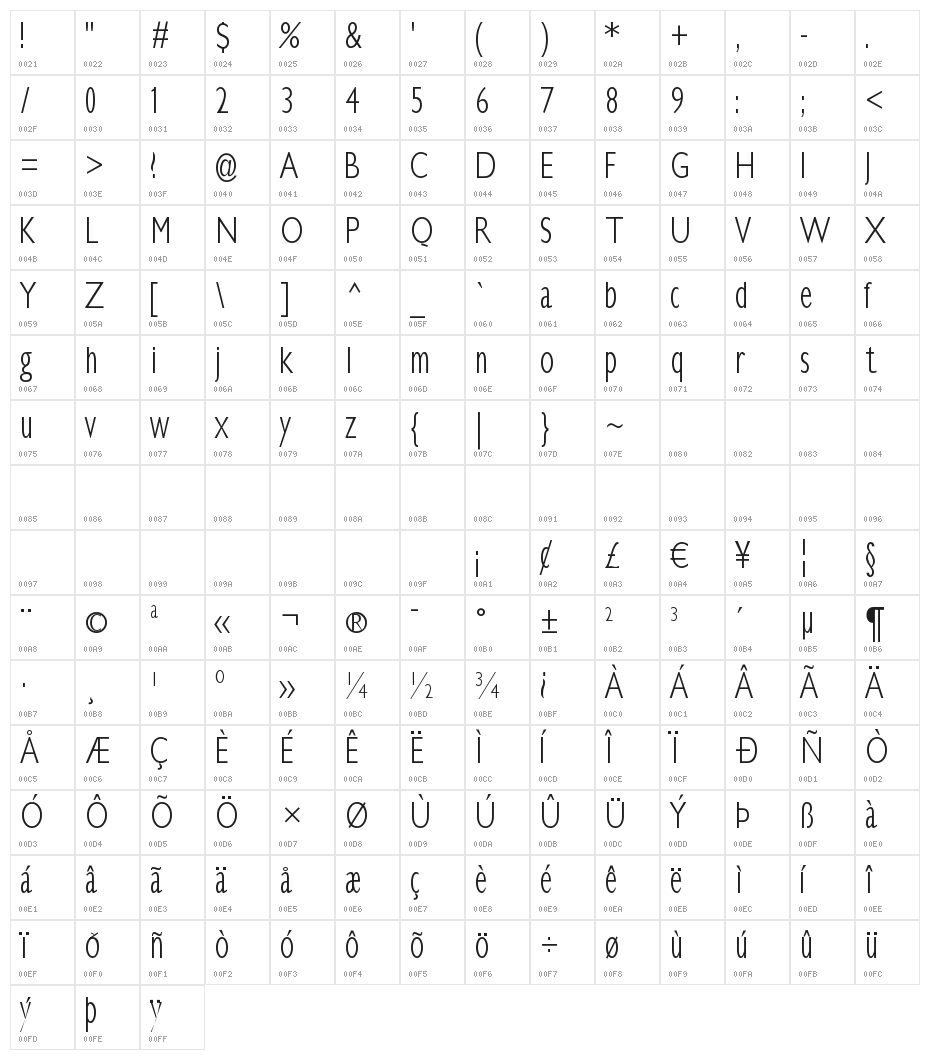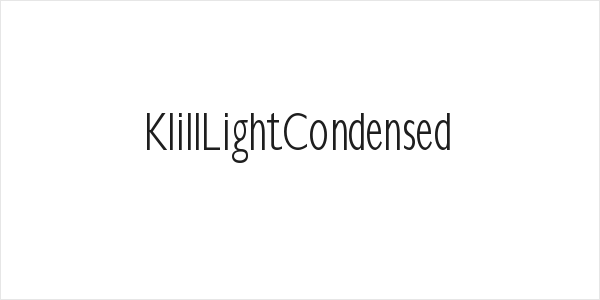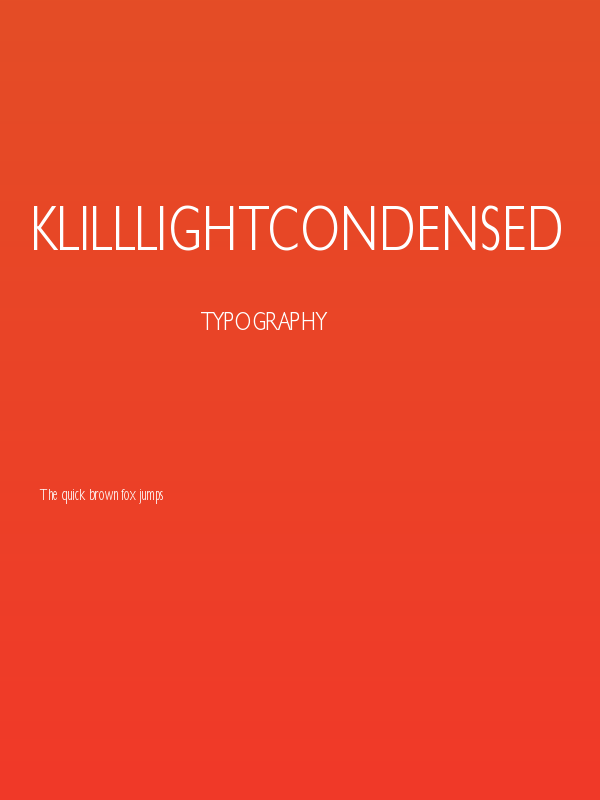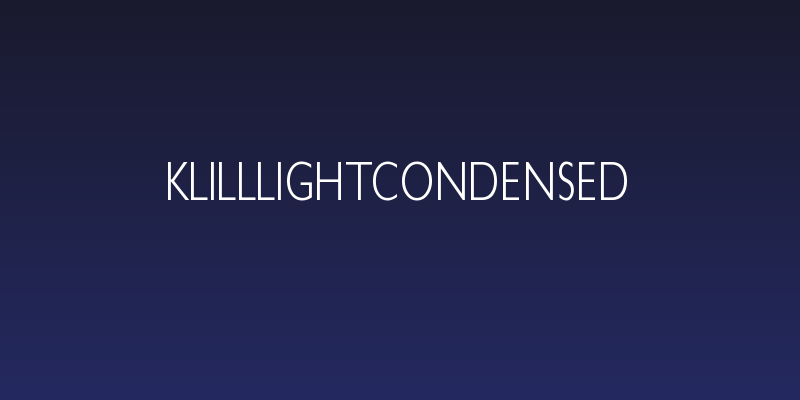
KlillLightCondensed Font
KlillLightCondensed Description
This font features a sleek and modern design with a condensed structure, making it ideal for space-efficient text. The characters are clean and minimalistic, with a uniform stroke width that conveys a sense of elegance and simplicity. The uppercase letters are tall and narrow, while the lowercase letters maintain a consistent height, enhancing readability. Numbers and special characters are designed to match the overall aesthetic, ensuring a cohesive look across all text elements. The font's light weight and tight character spacing make it suitable for a variety of design applications where clarity and style are paramount.
| Proposed Projects | Ideal for branding, editorial design, packaging, and web design projects where space is limited and a modern aesthetic is desired. |